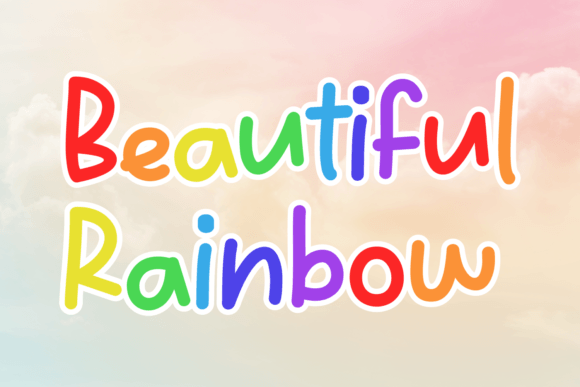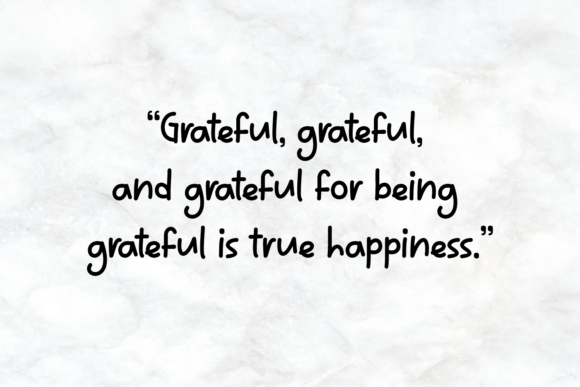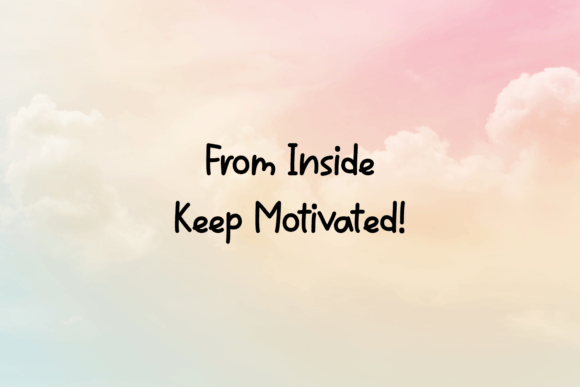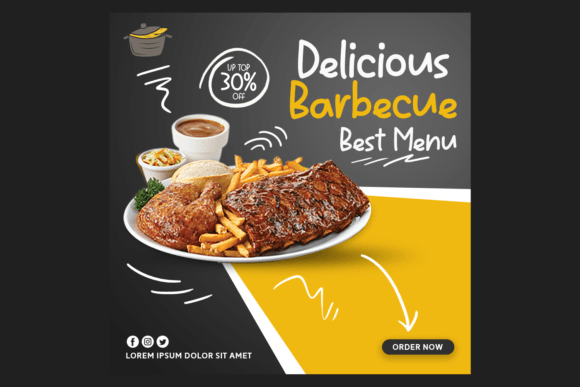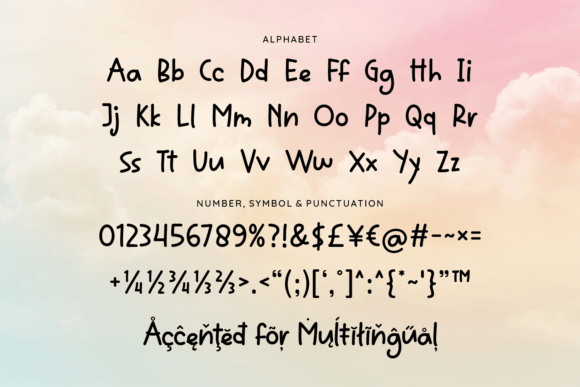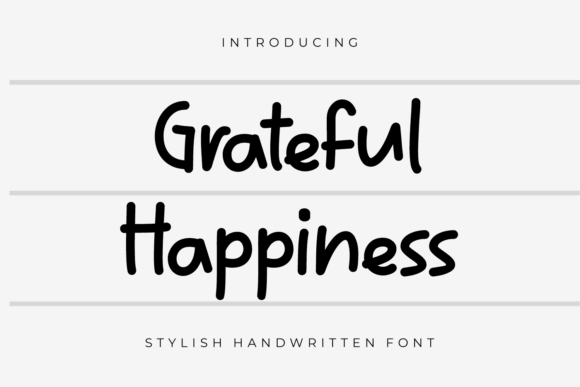
Grateful Happiness Font: The Perfect Choice for Creative Projects
Are you looking for a font that can add a touch of warmth and friendliness to your creative projects? Look no further than the Grateful Happiness Font! This cute and cheerful handwritten font is designed to bring a smile to your face and make your designs stand out. In this article, we’ll take a closer look at the features and benefits of the Grateful Happiness Font, and explore how it can be used in a variety of creative projects.
What is Grateful Happiness Font?
Grateful Happiness Font is a beautifully crafted handwritten font that exudes a sense of joy and positivity. Its bold look and friendly aesthetic make it perfect for a wide range of creative projects, from websites and advertising materials to cards and crafts. The font is designed to be highly versatile, making it an excellent choice for designers and crafters who want to add a personal touch to their work.
Key Features of Grateful Happiness Font
• Cute and Cheerful Design: The Grateful Happiness Font features a playful and upbeat design that is sure to capture the attention of your audience.
• Bold Look: The font has a bold and confident look that makes it perfect for headlines, titles, and other design elements.
• Highly Versatile: The Grateful Happiness Font can be used in a wide range of creative projects, from digital designs to print materials.
Benefits of Using Grateful Happiness Font
So, why should you choose the Grateful Happiness Font for your creative projects? Here are just a few benefits of using this amazing font:
• Adds a Personal Touch: The Grateful Happiness Font adds a personal and human touch to your designs, making them more relatable and engaging.
• Perfect for Branding: The font’s bold and friendly aesthetic makes it perfect for branding and advertising materials.
• Supports Multiple Languages: The Grateful Happiness Font supports multiple languages, making it a great choice for designers who work with international clients.
Creative Project Ideas Using Grateful Happiness Font
The Grateful Happiness Font is a versatile font that can be used in a wide range of creative projects. Here are a few ideas to get you started:
• Website Design: Use the Grateful Happiness Font to add a touch of warmth and friendliness to your website design.
• Advertising Materials: The font’s bold look and friendly aesthetic make it perfect for advertising materials, such as brochures, flyers, and posters.
• Card Making: Add a personal touch to your handmade cards with the Grateful Happiness Font.
• Crafting: The font is perfect for crafting projects, such as scrapbooking, journaling, and DIY home decor.